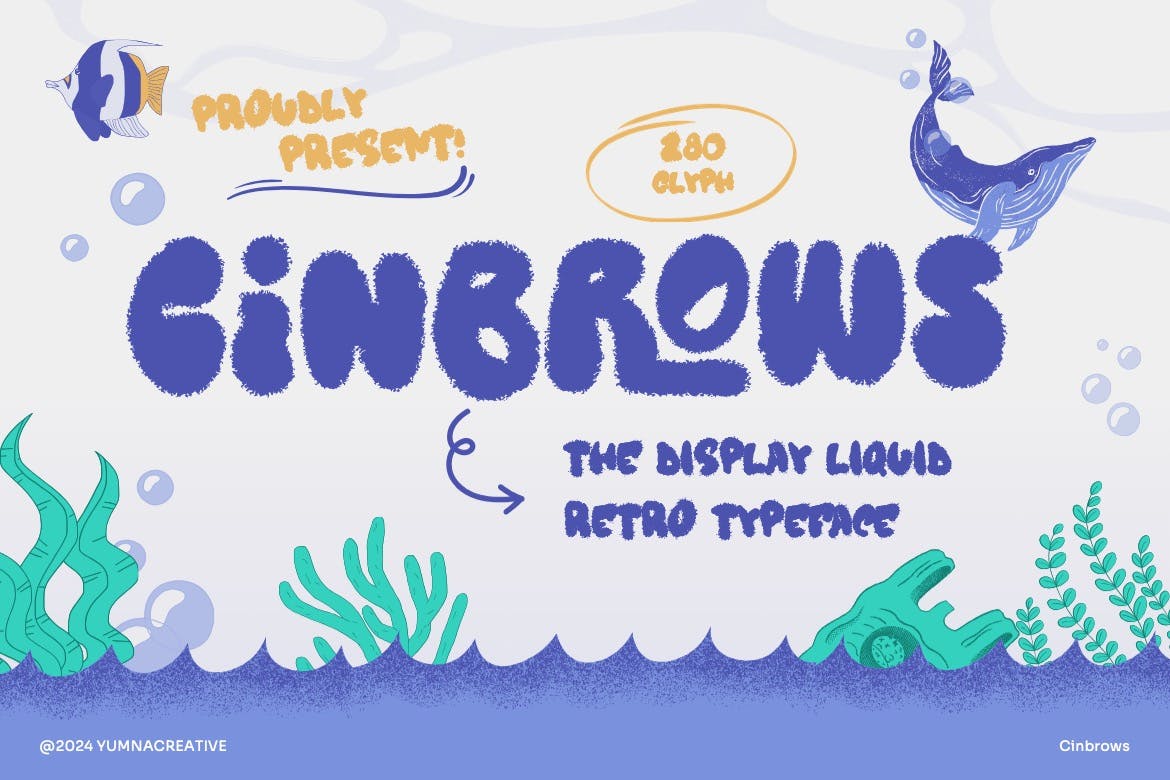
Cinbrows - Liquid Retro Font
Cinbrows - Liquid Retro Font flows across vintage cinema posters, retro movie theater signage, 70s-inspired album covers, nostalgic brand revivals, classic film festival graphics, vintage entertainment venues, retro beauty salon branding, groovy fashion campaigns, throwback music events, vintage cocktail bar menus, classic car show materials, and cinematic nostalgia marketing where liquid retro aesthetics and cinema-inspired elegance create mesmerizing vintage experiences.
This captivating typeface generates excitement through its perfect fusion of liquid typography effects with classic cinema aesthetics that creates typography evoking the golden age of film and retro entertainment culture. Cinbrows - Liquid Retro Font embodies the essence of vintage cinema with its flowing, liquid-inspired letterforms that suggest movie credits dissolving into dreamy sequences and the glamorous typography of classic Hollywood productions. The font's sophisticated design approach incorporates cinematic liquid effects, retro color palettes, and vintage entertainment styling that transport viewers to the golden era of film and entertainment. Its distinctive character reflects the glamour, nostalgia, and artistic sophistication that define authentic vintage cinema and retro entertainment culture.
The Cinbrows - Liquid Retro Font family encompasses multiple cinematic variations including Regular, Bold, Light, Flowing, and Groovy versions, each maintaining the font's characteristic liquid retro appeal while offering different levels of vintage impact. The collection features liquid typography effects, cinema-inspired styling, and retro decorative elements that enhance its nostalgic authenticity. Additional features include vintage film ornaments, cinema symbols, retro decorative borders, and groovy flourishes that reinforce the font's connection to classic cinema and liquid typography artistry.
Vintage entertainment brands and retro design enthusiasts consistently choose Cinbrows - Liquid Retro Font Free Download for projects requiring typography that communicates authentic cinema nostalgia and liquid artistic sophistication. This remarkable typeface excels in applications where creating emotional connections to vintage entertainment and conveying retro authenticity are essential for brand success. The font's liquid cinema qualities make it particularly effective for entertainment venues, vintage brands, and nostalgic campaigns targeting audiences who appreciate classic film aesthetics and retro artistic expression.
Whether you're designing vintage cinema promotions, creating retro entertainment branding, developing nostalgic marketing campaigns, or crafting classic film-inspired materials, Cinbrows - Liquid Retro Font delivers unmatched cinematic authenticity. Its ability to convey vintage glamour, liquid artistry, and cinema nostalgia makes it invaluable for creators seeking typography that genuinely captures the magic of classic entertainment. The font's flowing presence ensures your designs will communicate the liquid sophistication and vintage cinema charm that define exceptional retro communications and nostalgic entertainment experiences.